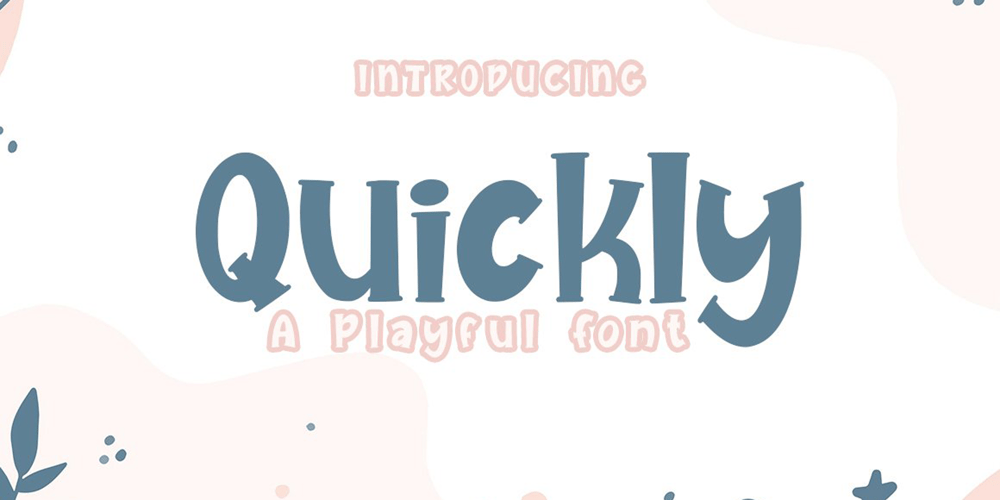
Quickly Font Family was designed by Ardi Parwito and published by Green Adventure Studio. Quickly contains 1 styles and family package options. Quickly is a cute and quirky display font. It will add an incredibly joyful touch to your designs. Add this beautiful display font to each of your creative ideas and notice how it makes them stand out!